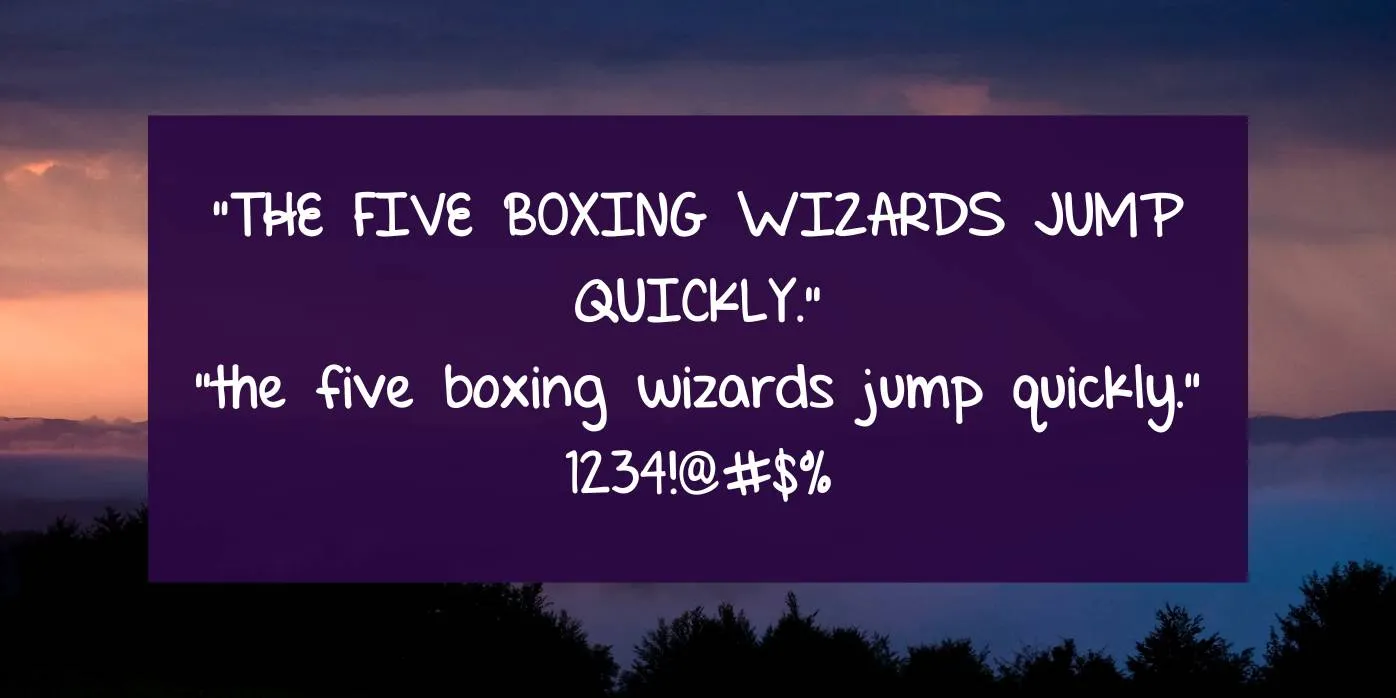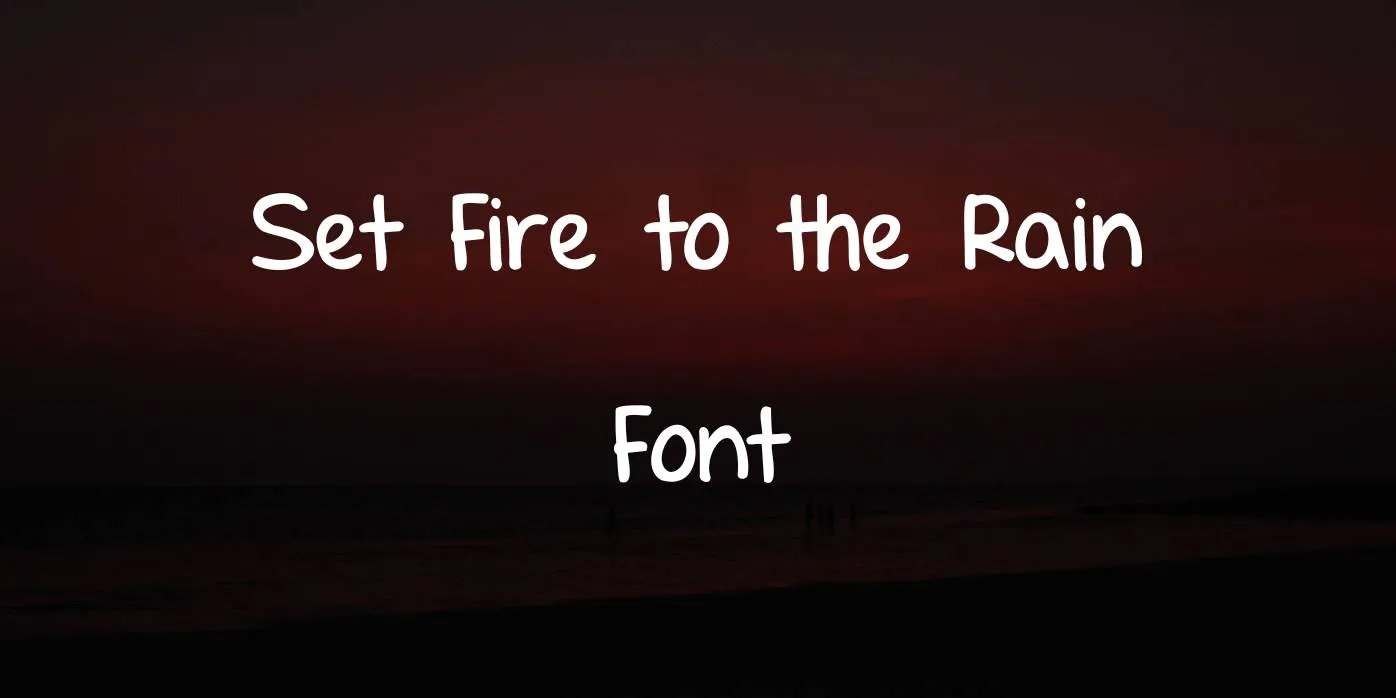
Set Fire To The Rain Font
Let’s introduce you to a handwritten type of font that is known as the name of Set Fire To The Rain Font. Kimberly Geswein designs this texture. The characters of this texture are stylish, readable, and client-friendly. You can utilize its online generator tool for converting your normal type of alphabet set into stylish and modern shapes.